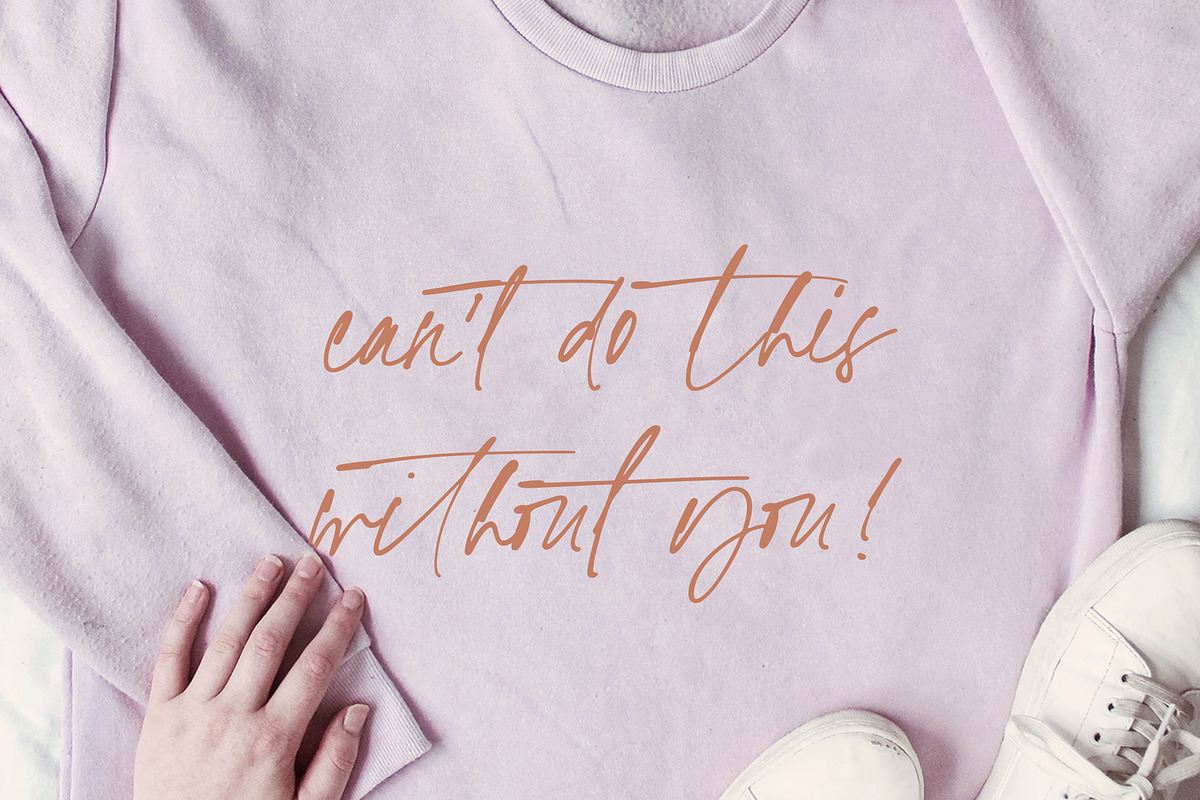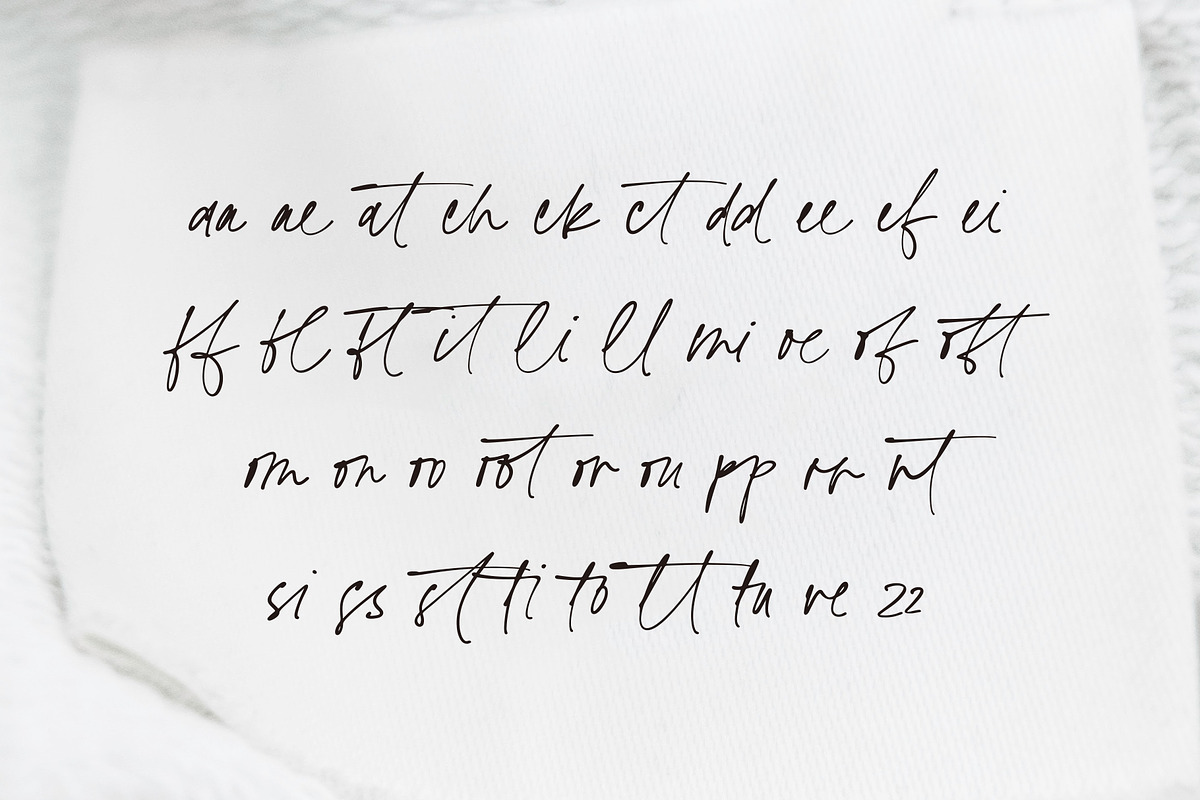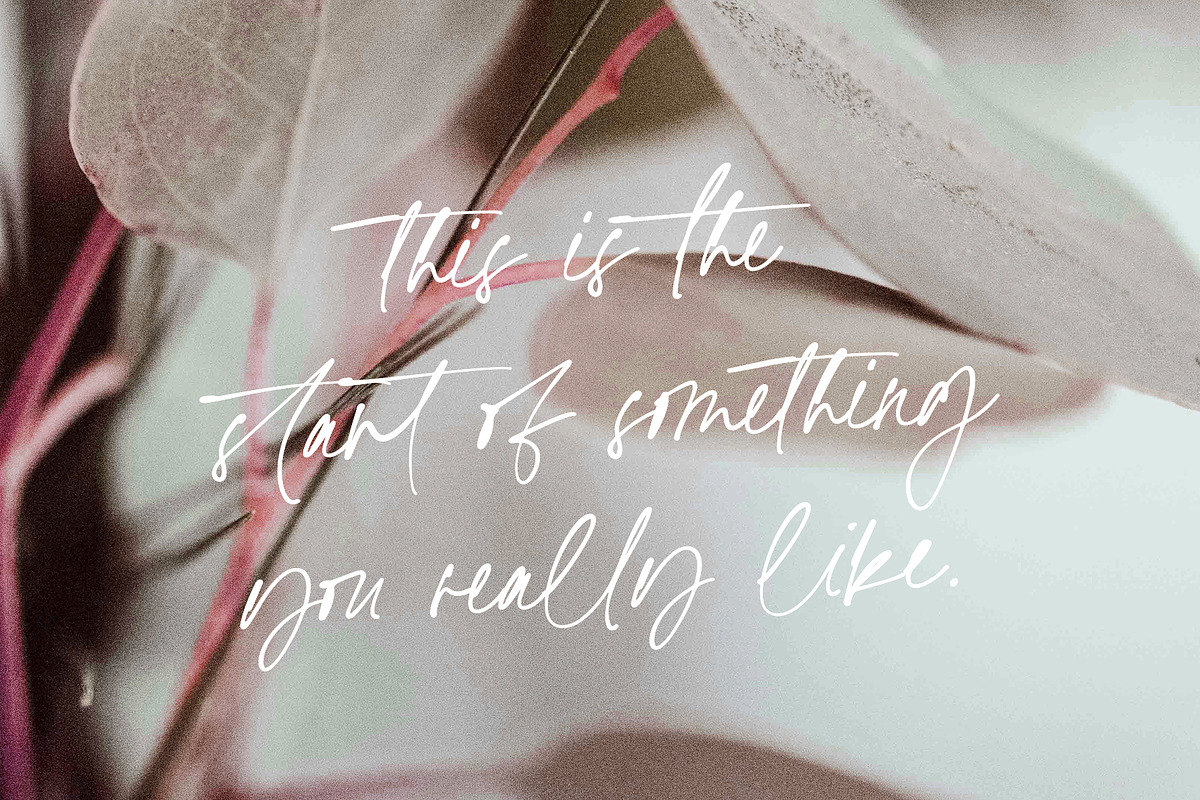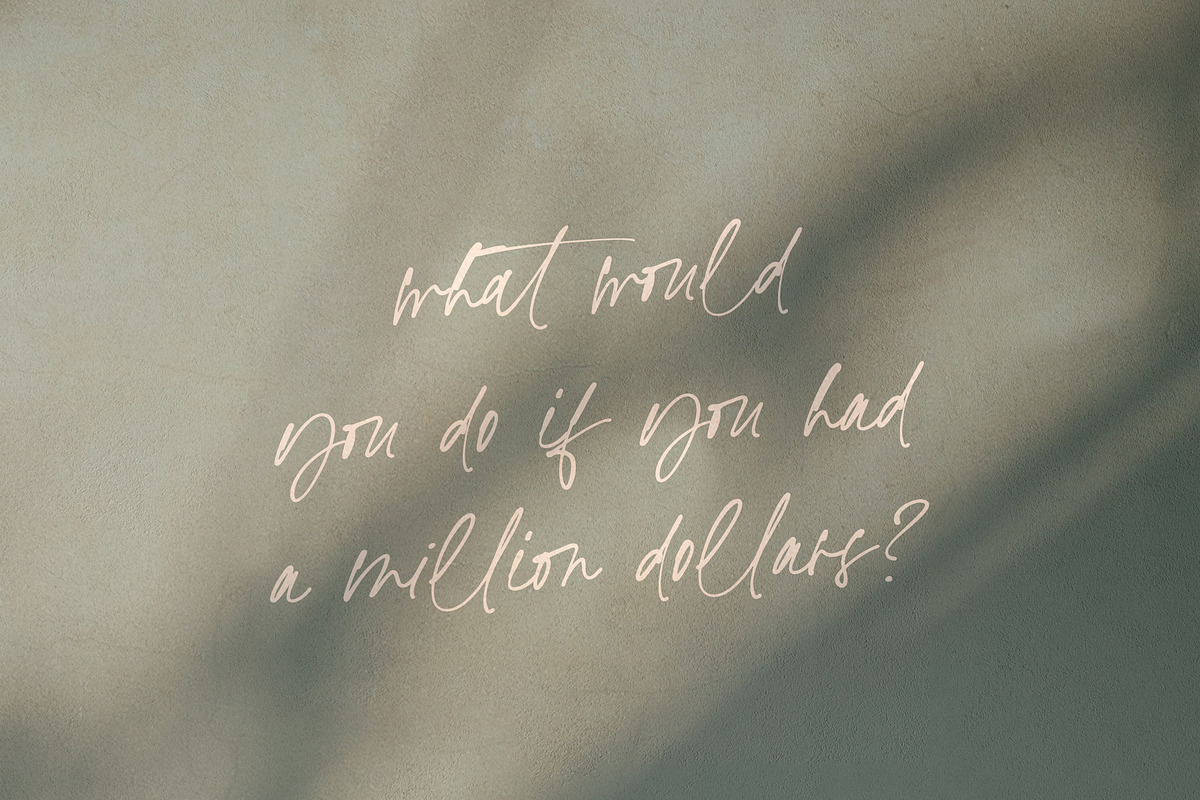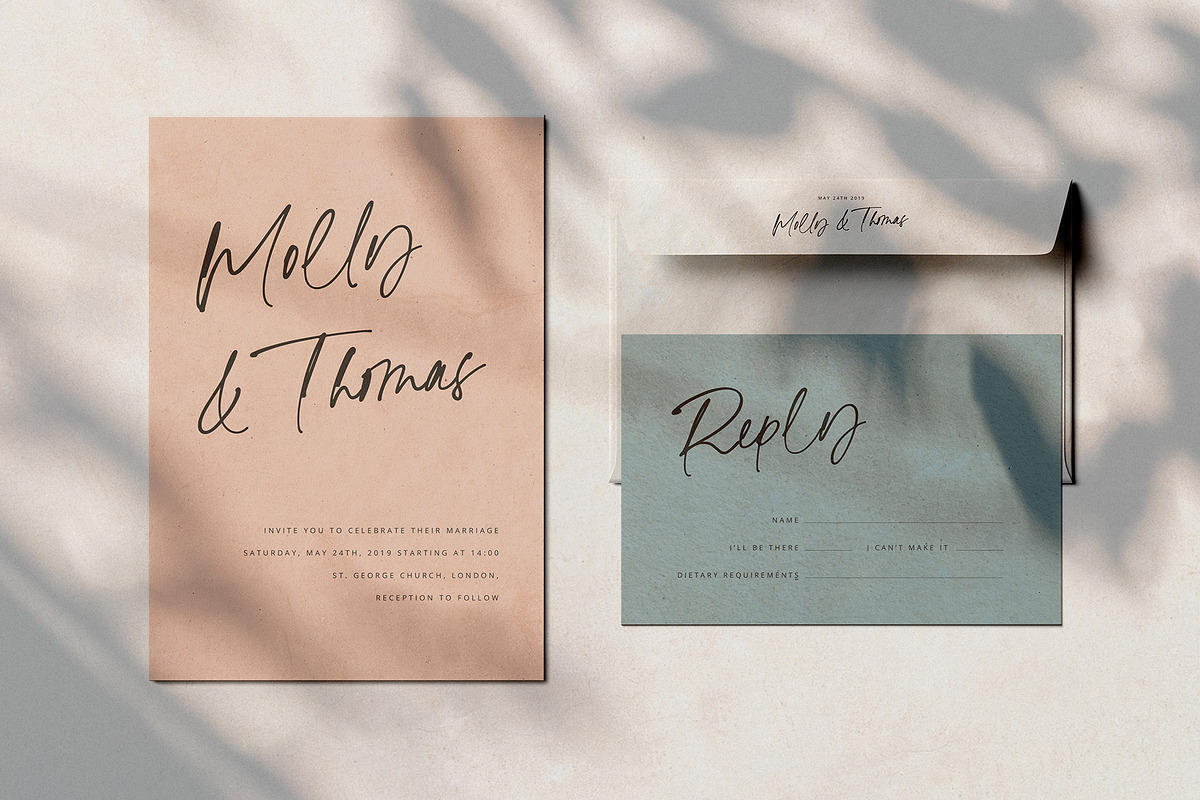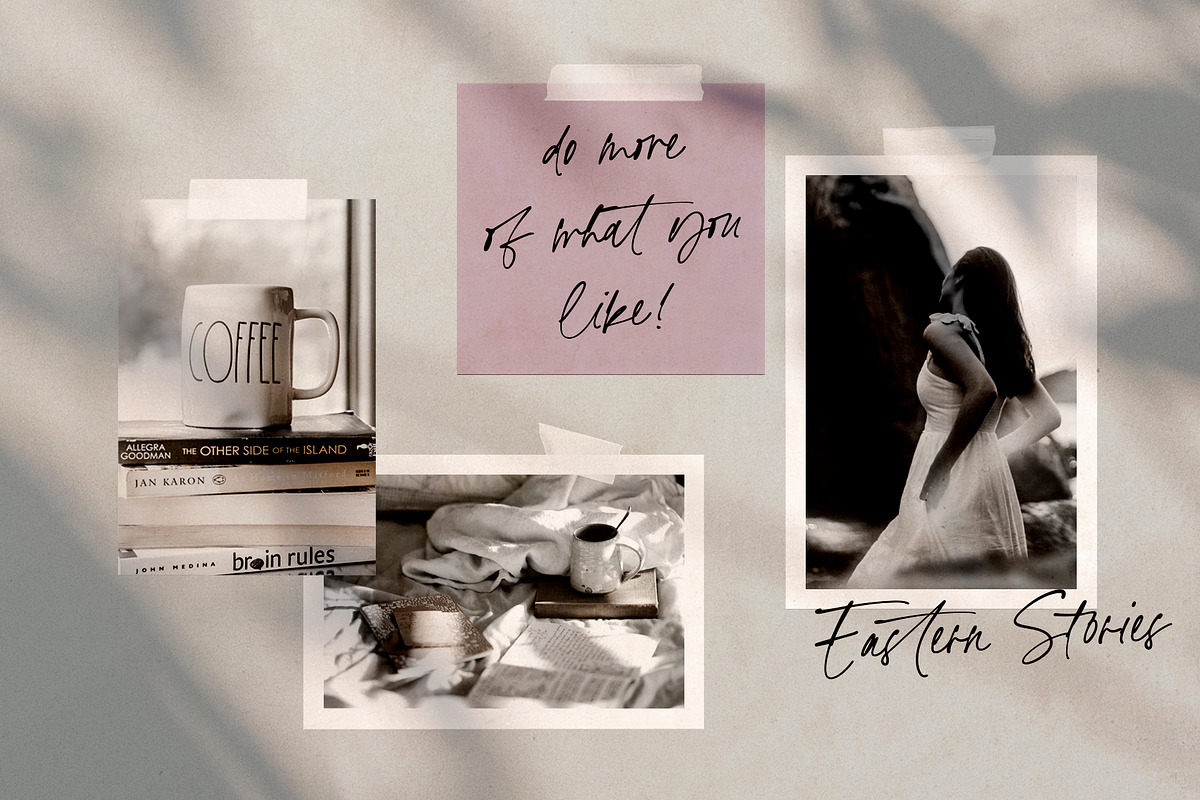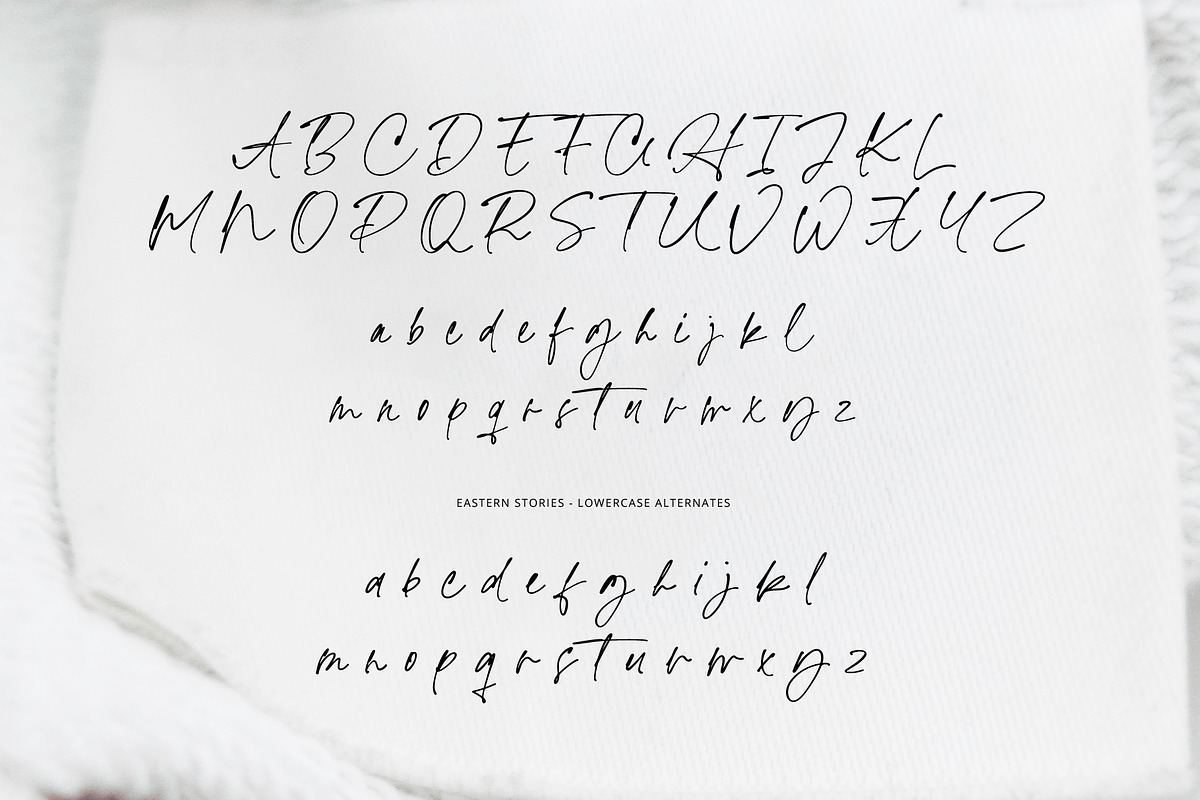
Eastern Stories Handwritten Font
Eastern Stories is a stylish, modern and natural handwritten that is perfect for branding, invitations and web design projects.
Eastern Stories includes a set of super nice Uppercase and Lowercase letters, an entire set of lowercase alternates and 38 gorgeous ligatures that makes the font to look natural and cursive.
Eastern Stories Handwritten Font comes with all Western, Central and Southern European Languages diacritics and includes an entire set of lowercase alternates and 38 ligatures
- Eastern Stories includes a set of super nice Uppercase and Lowercase letters, an entire set of lowercase alternates and 38 gorgeous ligature
- Eastern Stories Handwritten Font comes with all Western, Central and Southern European Languages diacritics and includes an entire set of lo
- Eastern Stories includes a set of super nice Uppercase and Lowercase letters, an entire set of lowercase alternates and 38 gorgeous ligature
- Eastern Stories Handwritten Font comes with all Western, Central and Southern European Languages diacritics and includes an entire set of lo
- Eastern Stories includes a set of super nice Uppercase and Lowercase letters, an entire set of lowercase alternates and 38 gorgeous ligature
- Eastern Stories Handwritten Font comes with all Western, Central and Southern European Languages diacritics and includes an entire set of lo
Why Eastern Stories Handwritten Font is worth a look
Eastern Stories Handwritten Font by VladCristea fits naturally into Branding, posters, packaging, typography.